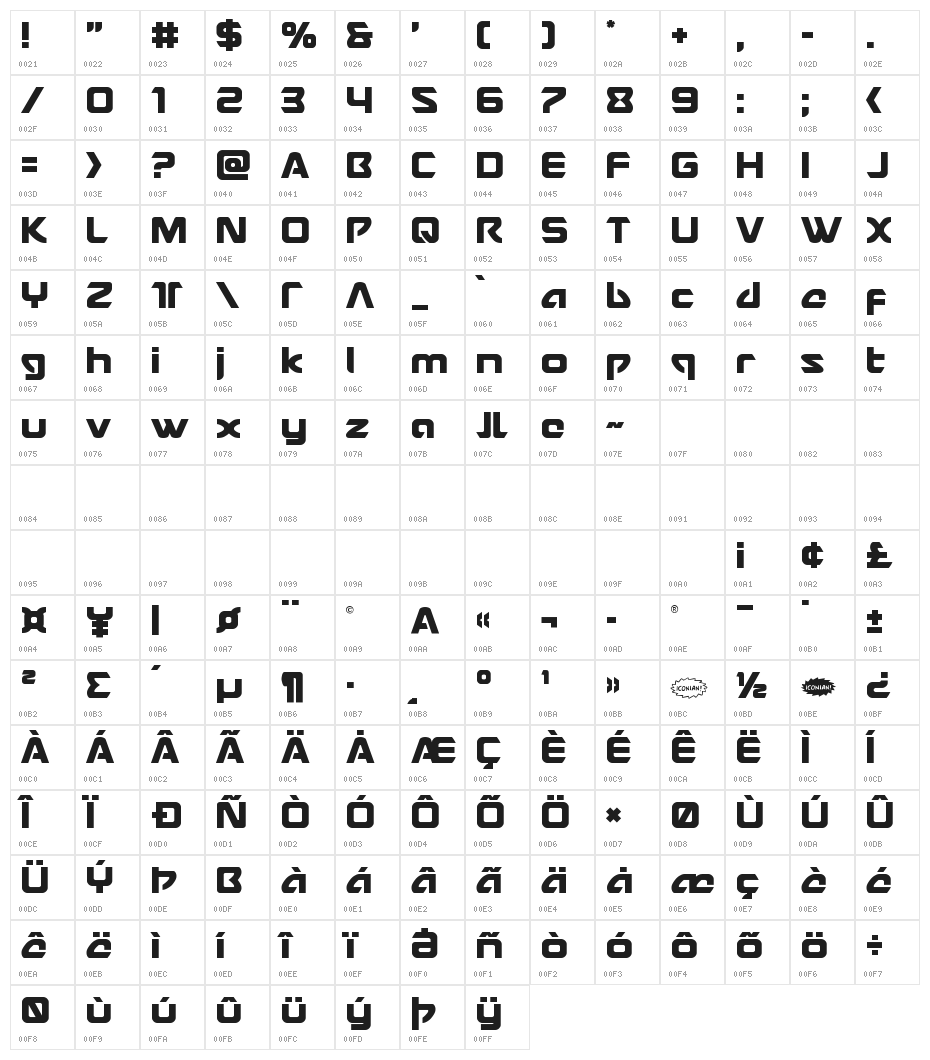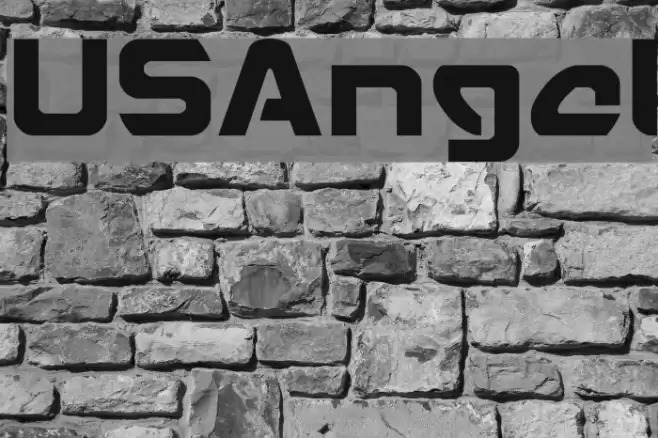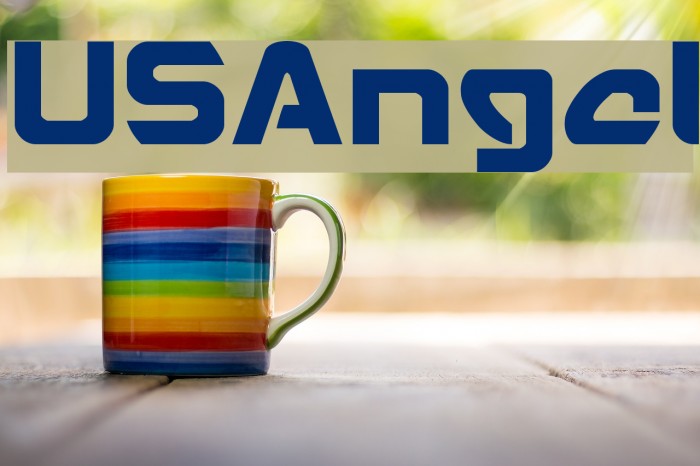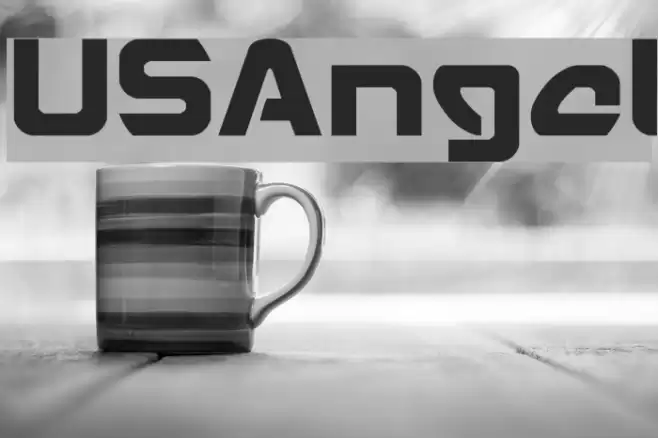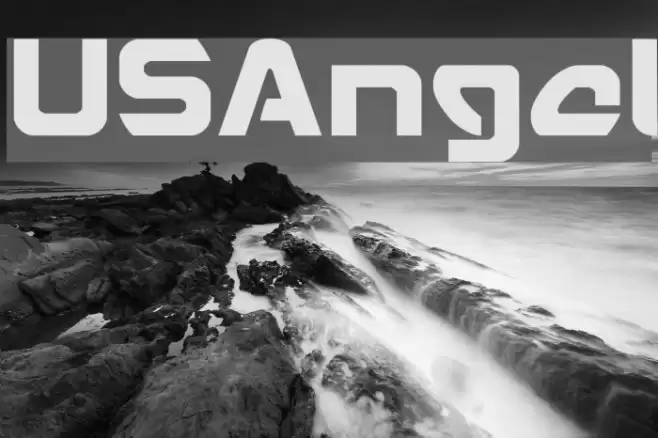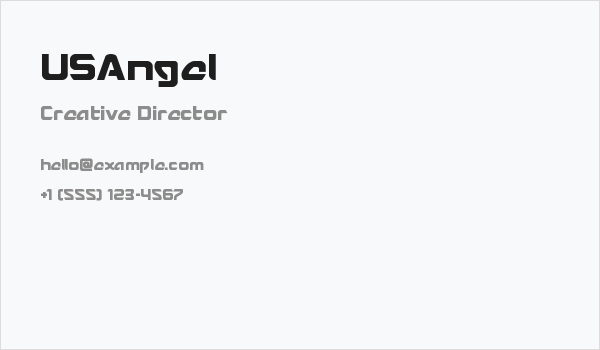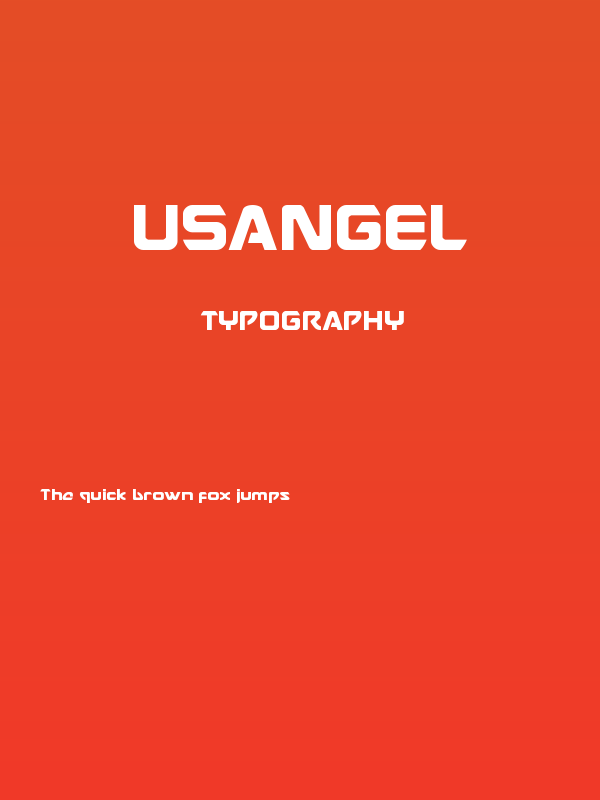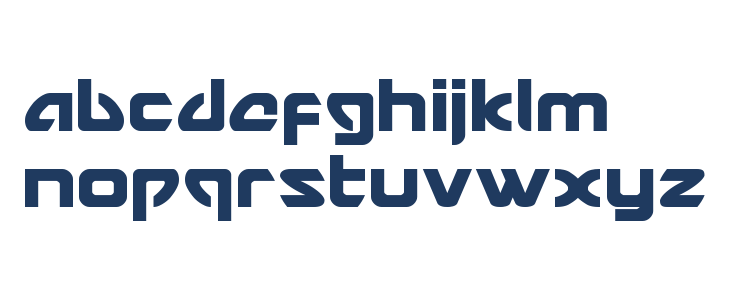
USAngel Font
USAngel Description
This font features a bold and futuristic design with geometric shapes and sharp angles. The uppercase letters are particularly striking, with a strong presence and a modern aesthetic. The lowercase letters maintain the same boldness, ensuring consistency across text. Numbers and special characters are designed to match the overall style, making them suitable for a variety of uses. The font's design is clean and impactful, ideal for making a statement. Its unique character shapes make it stand out, while maintaining readability.
| Proposed Projects | Ideal for technology branding, sci-fi posters, video game titles, and modern advertising. |